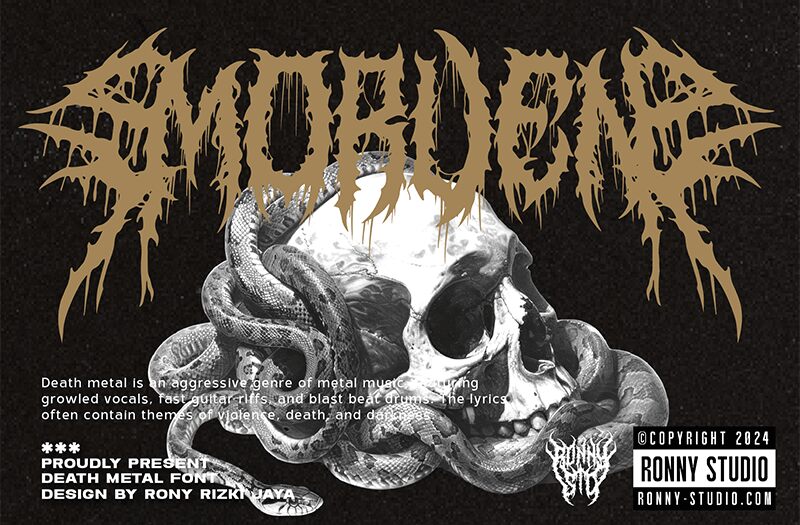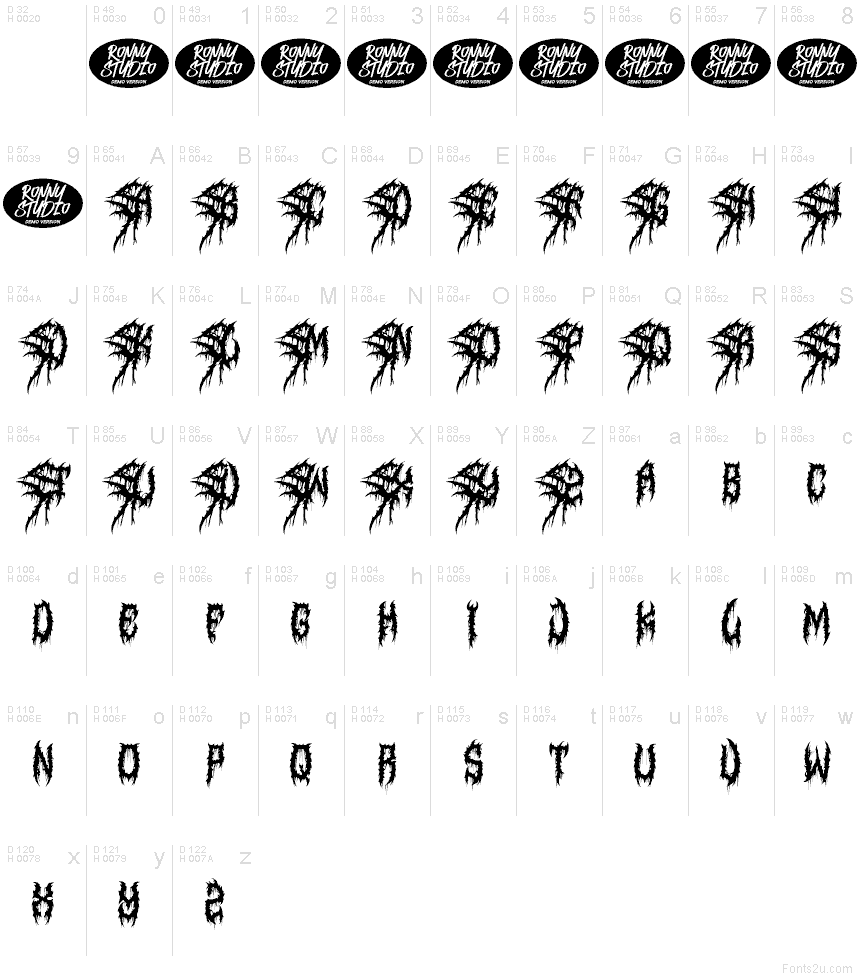
Morven DEMO
Morven font by Ronny Studio captivates with its Gothic modernism where grunge details and distressed features stand out. Harsh outlines, dramatic notes, and a chaotic build usher a unique visual experience in every word while the font’s severe influence matches its aggressive impact.
This free gothic font will be elegant on album or book covers, streetwear branding designs, poster titles, game signages, app interfaces, and web banners. Try it for package design of stationery items or even inject it into customer loyalty cards. Shop displays can also use it to attract more customers.